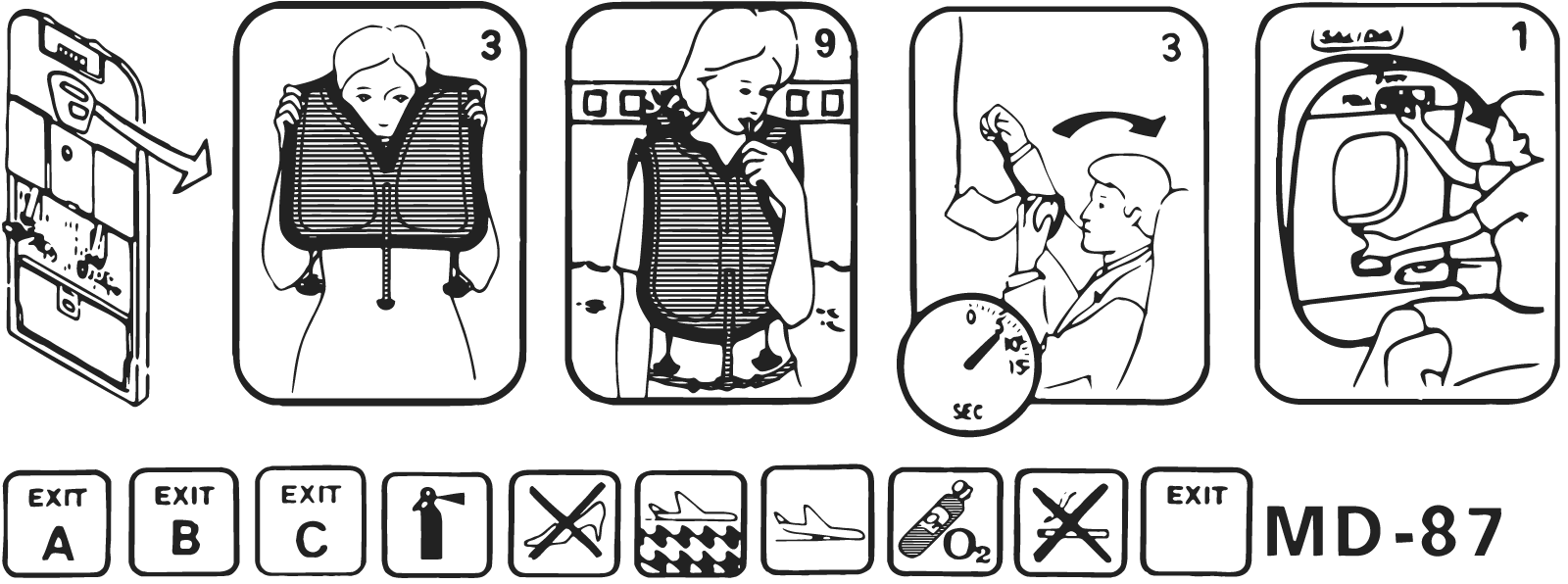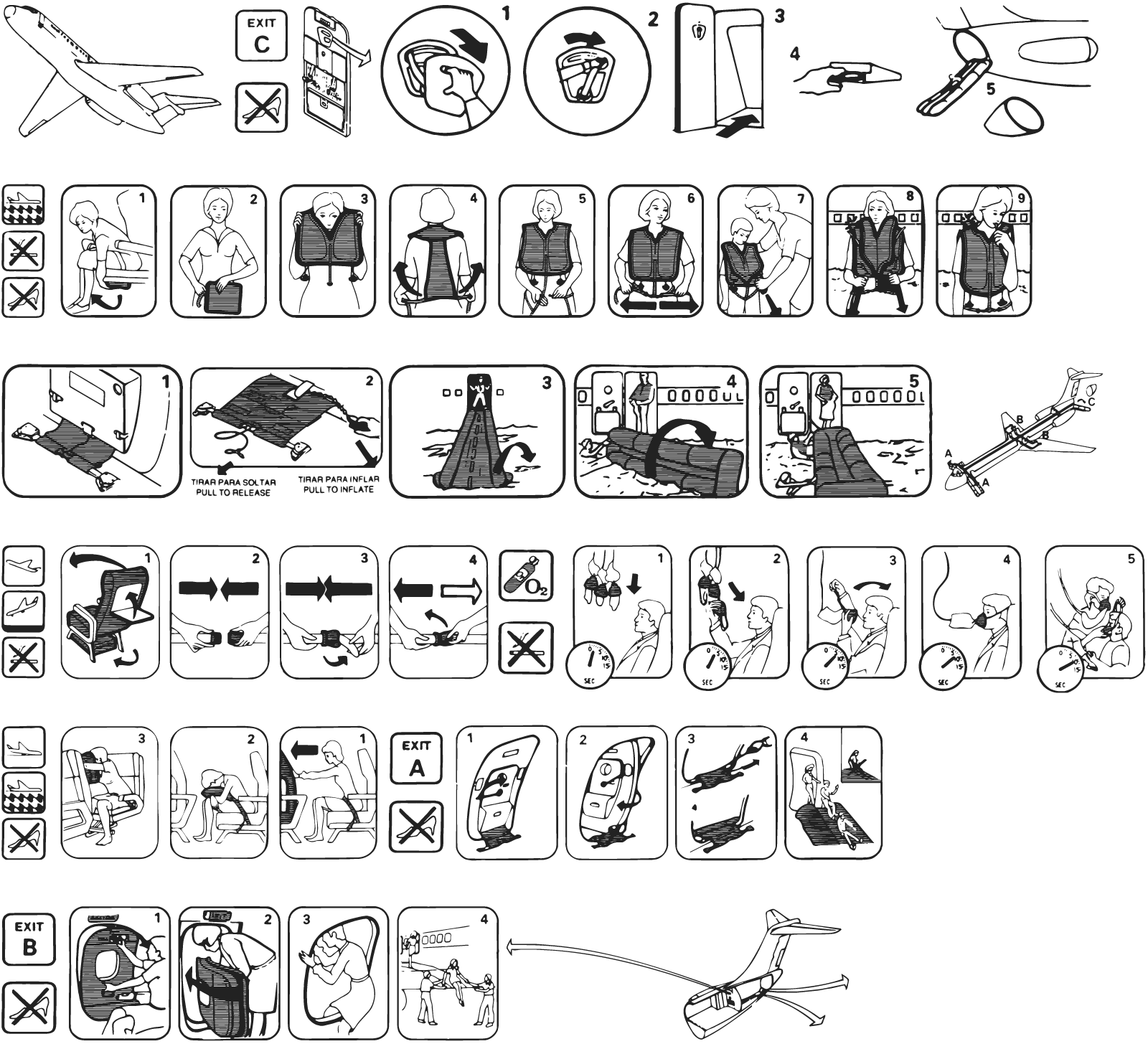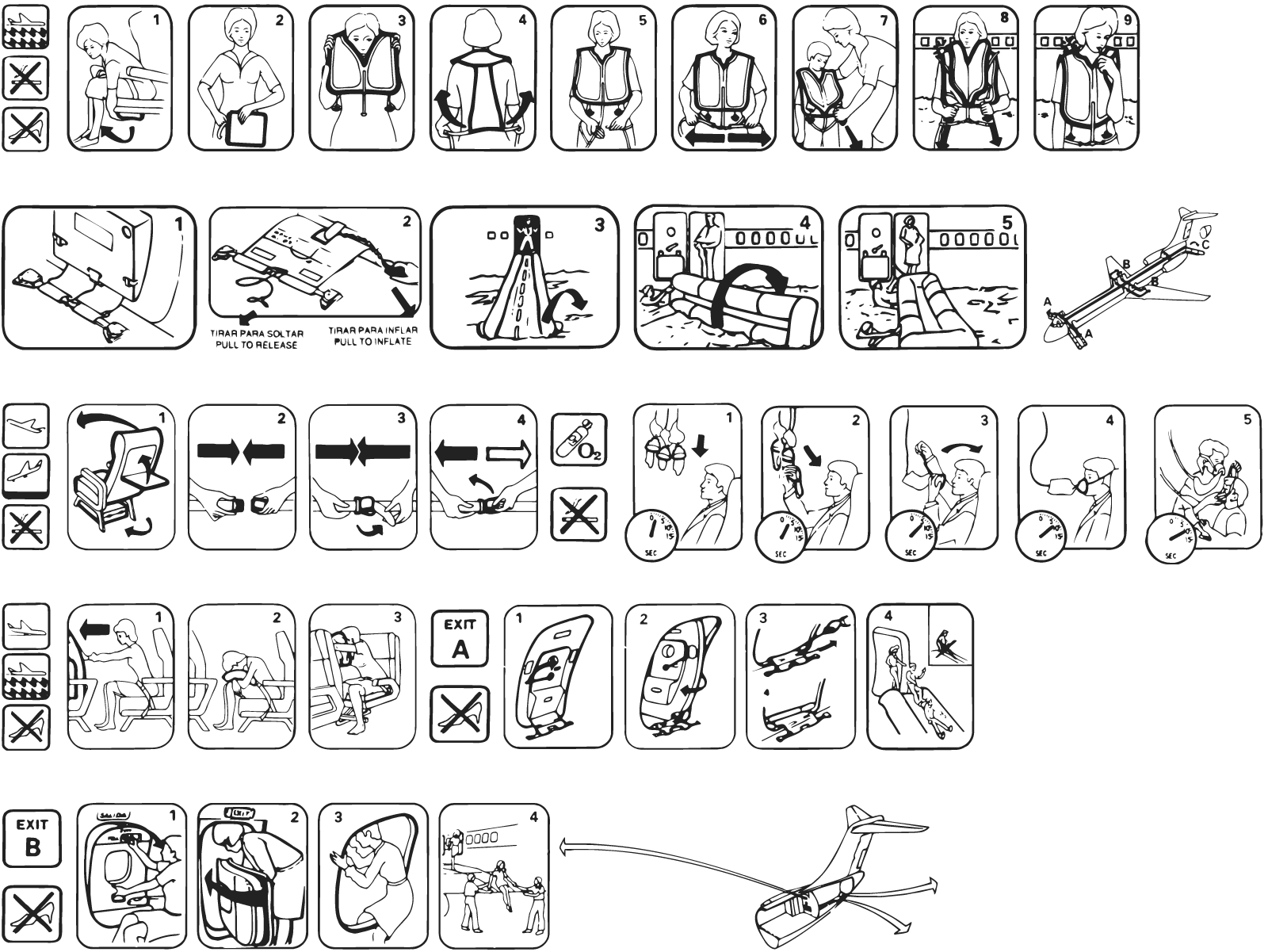
FastenYourSeatBelt
This dingbat font likes larger pointsizes and includes two weights. All images were taken from a sheet with security instructions by Iberia Airline.